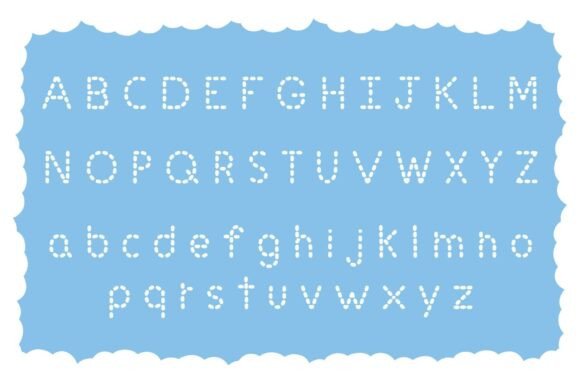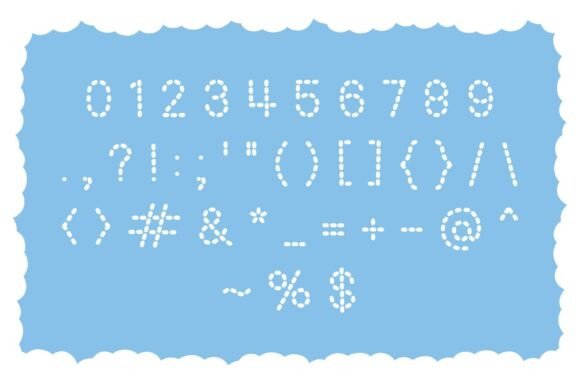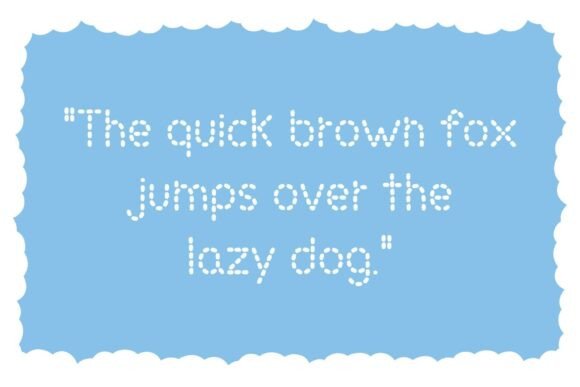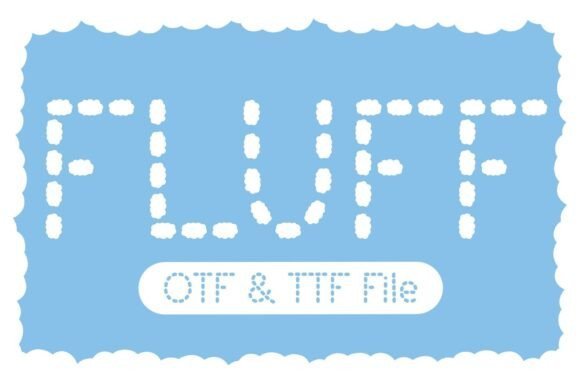
Introduction to Fluff Line Font
FluffLine is a dashed line font where each dash is replaced with a fluffy cloud shape, from invitations to posters, social media graphics, journals, and much more.
Key Features of Fluff Line Font
Why Choose Fluff Line Font?
Fluff Line Font offers exceptional quality and versatility, making it a valuable addition to your design toolkit. Whether you’re creating for personal projects or commercial use, Fluff Line Font delivers professional results.